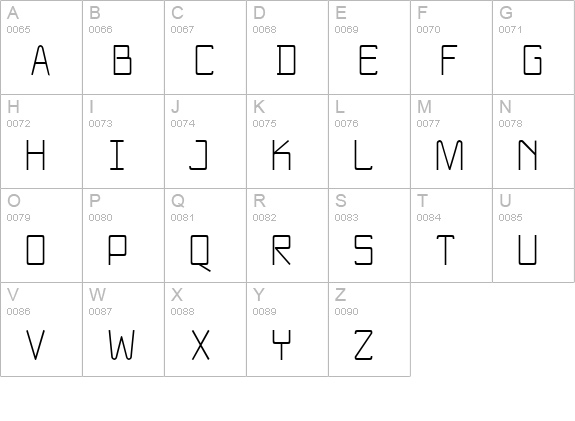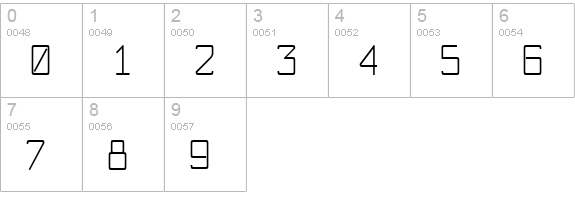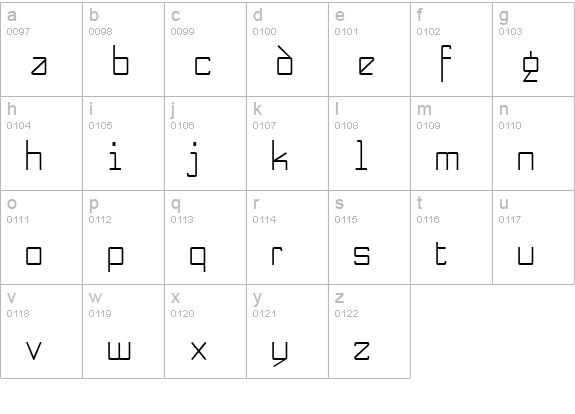
NewNerdishThin Font Details
Introducing NewNerdishThin font, a sleek and modern typeface that embodies the essence of sophistication and minimalism. With its clean lines and subtle curves, this font is perfect for adding a touch of elegance to any design project. NewNerdishThin is a versatile font that can be used for a wide range of applications, from branding and advertising to editorial and web design. Its thin and delicate appearance exudes a sense of refinement and style, making it ideal for projects that require a touch of sophistication. The best part about NewNerdishThin font is that it is available for free download at FontsMarket.com. Yes, you read that right - this premium font can be yours at no cost! Simply head over to FontsMarket.com and get your hands on this exquisite typeface to elevate your designs to the next level. Don't miss out on this opportunity to add a touch of class to your projects with NewNerdishThin font.